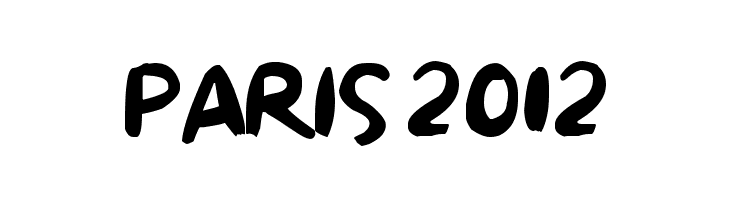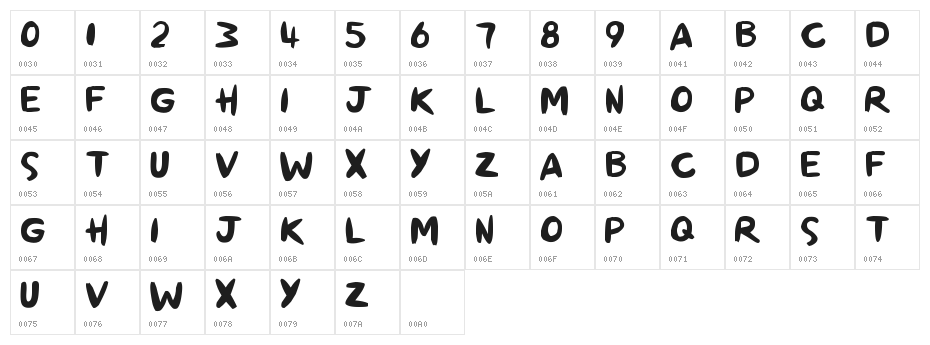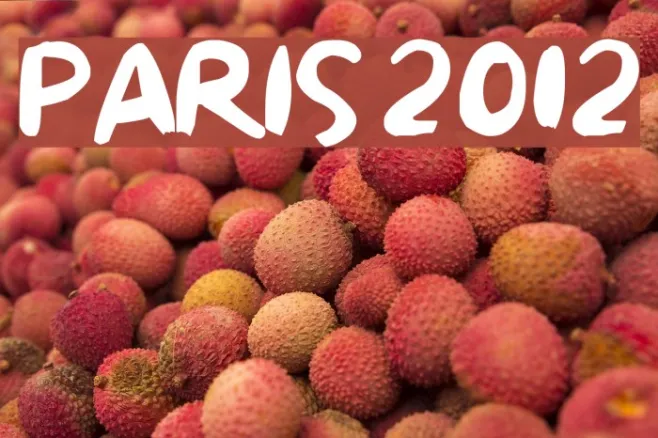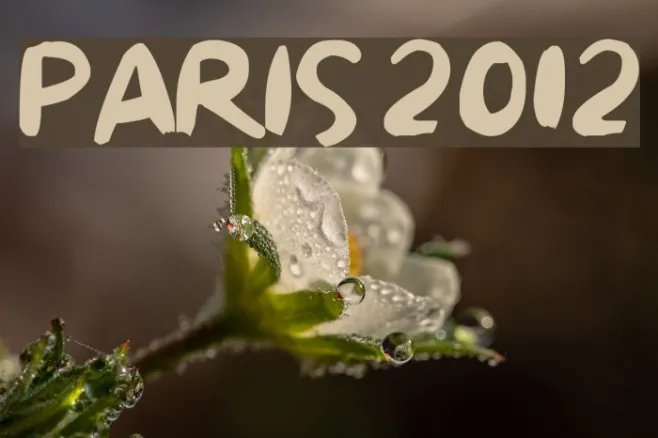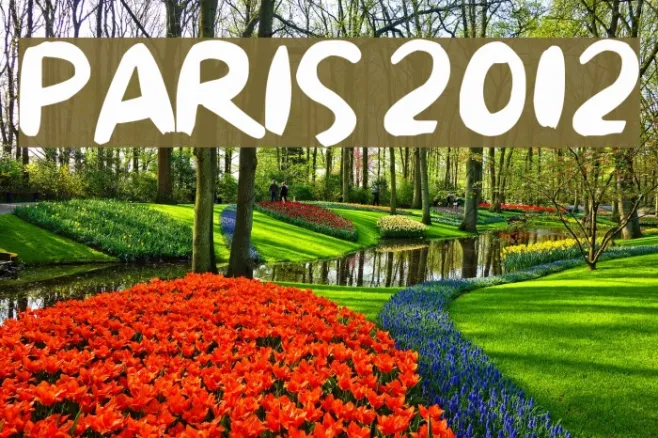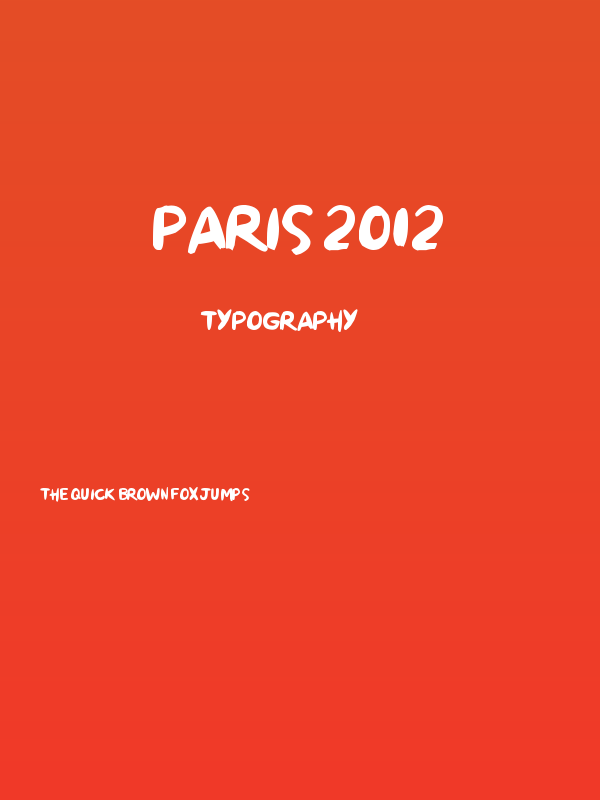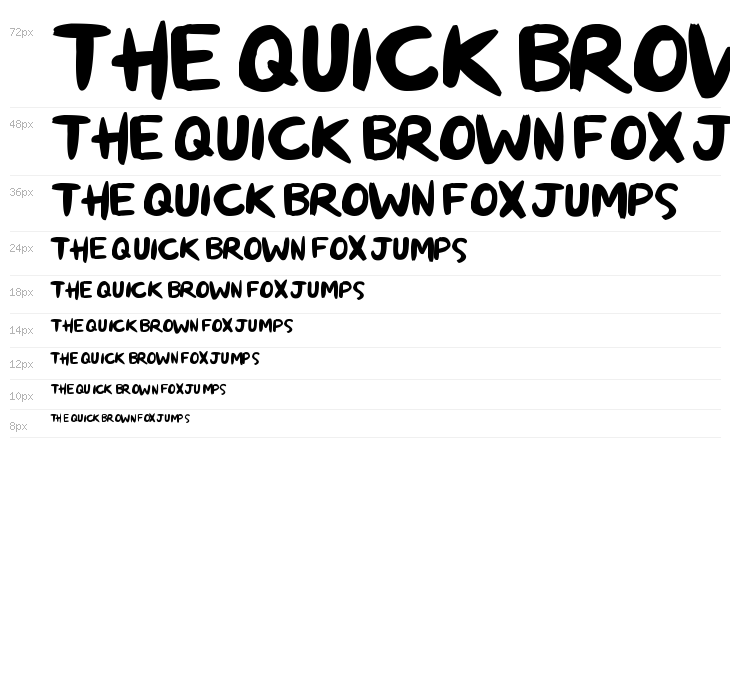
Paris 2012 Font
Paris 2012 Description
This font features a bold and expressive handwritten style, characterized by its thick strokes and playful curves. The letters have a casual and informal appearance, with a slightly uneven baseline that adds to its charm. The uppercase and lowercase letters are well-balanced, maintaining a consistent weight throughout. The numerals are equally bold, matching the style of the alphabet. This font exudes a sense of creativity and spontaneity, making it suitable for projects that require a personal touch or a fun, lively aesthetic.